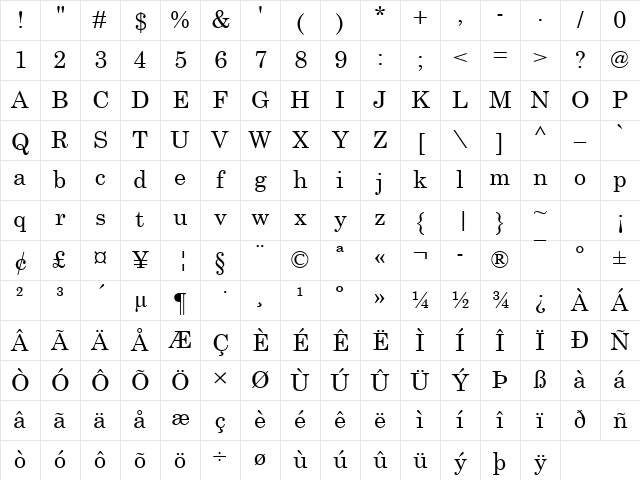
Century Schoolbook Regular
Foundry: Monotype Typography, Inc.
Designer: Morris Fuller Benton
Design Context for Century Schoolbook
Century Schoolbook is a composed and adaptable typeface that performs quietly and consistently across a wide range of design contexts.
Pro Tip: Use Century Schoolbook in both headline and body roles to test its range before committing to a single application.